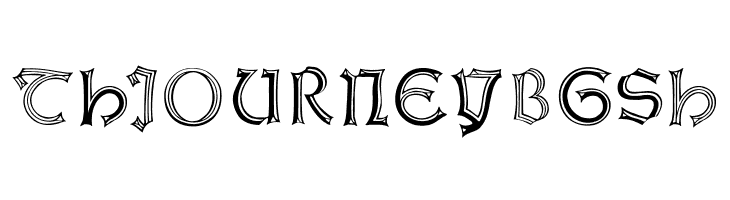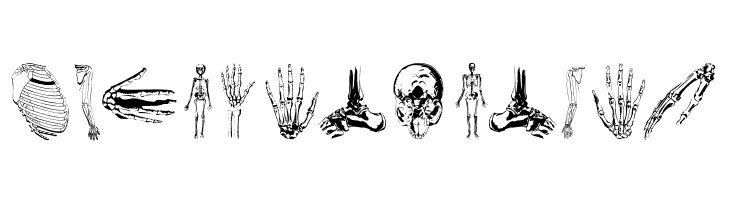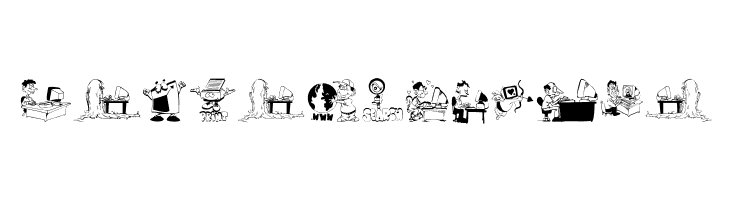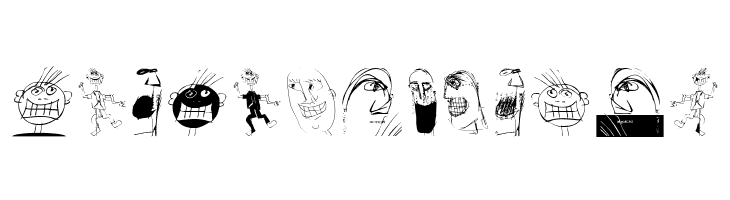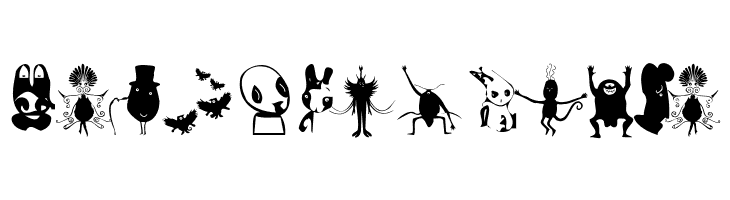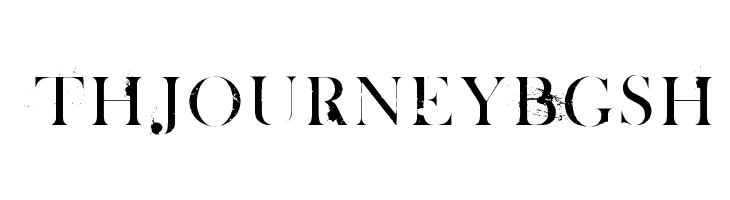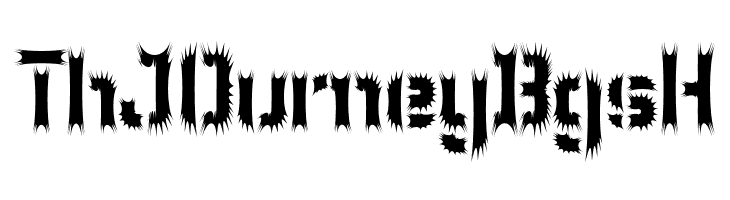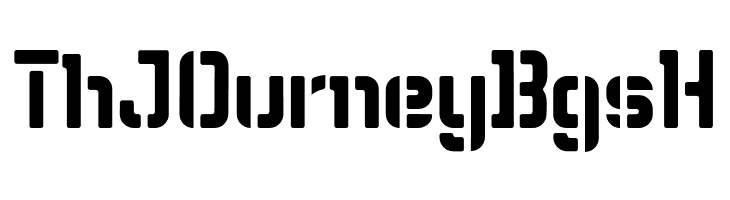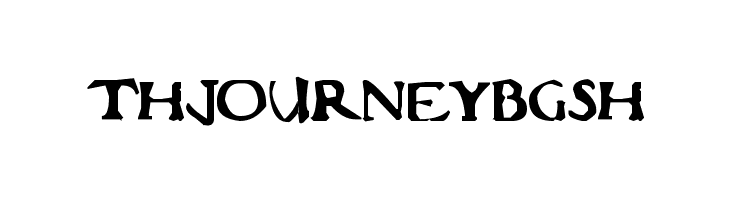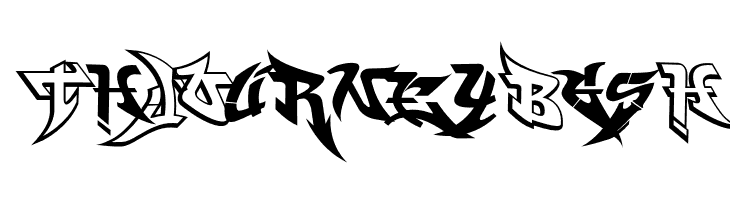
A bold, geometric font with rounded edges and a stencil-like design.
A bold, jagged, and decorative font with a dynamic and edgy style.
Cartoon illustrations of web-related activities.
A decorative dingbat font with imaginative cartoon characters.
A decorative anatomical illustration font with a hand-drawn, sketchy appearance.
An ornate, Gothic-style font with intricate flourishes and bold strokes.
A bold, medieval-inspired font with sharp, angular characters and a historical aesthetic.
A distressed serif font with a vintage, weathered look and high contrast strokes.
Playful, hand-drawn font with each character as a unique cartoon face or figure.
A bold, graffiti-inspired font with sharp angles and dynamic styling.